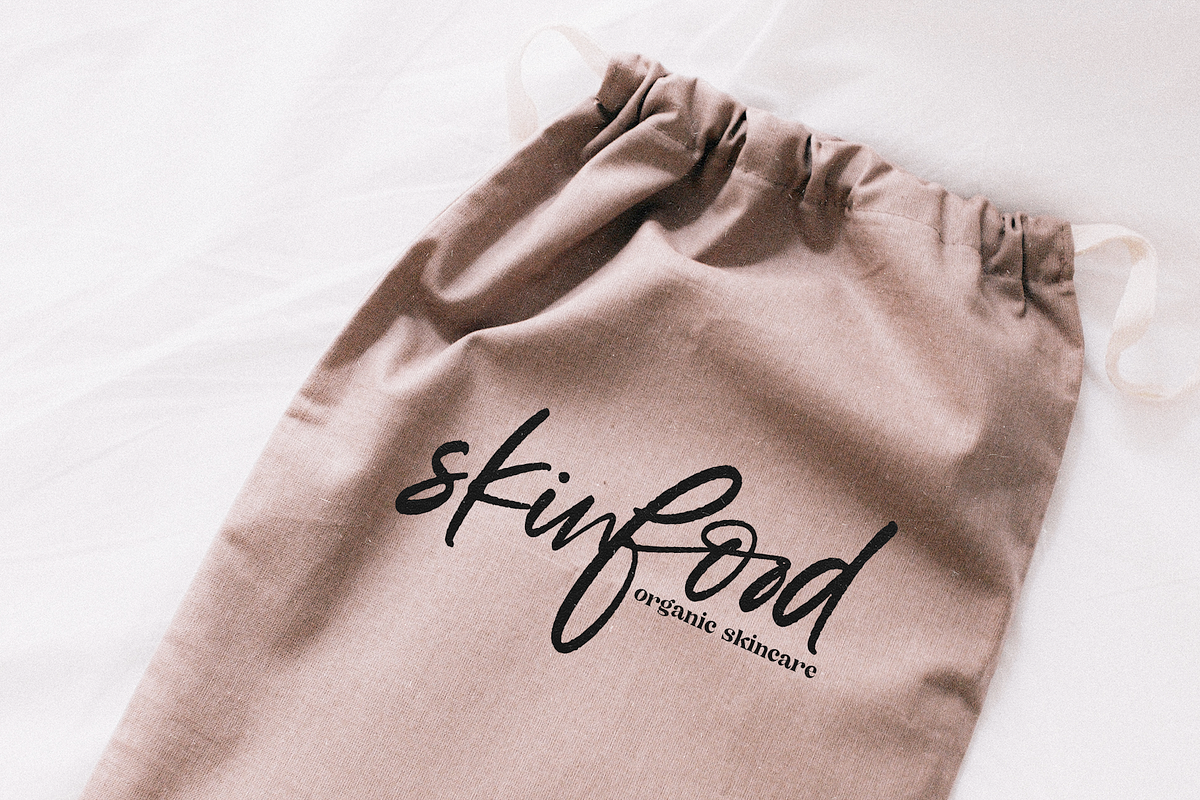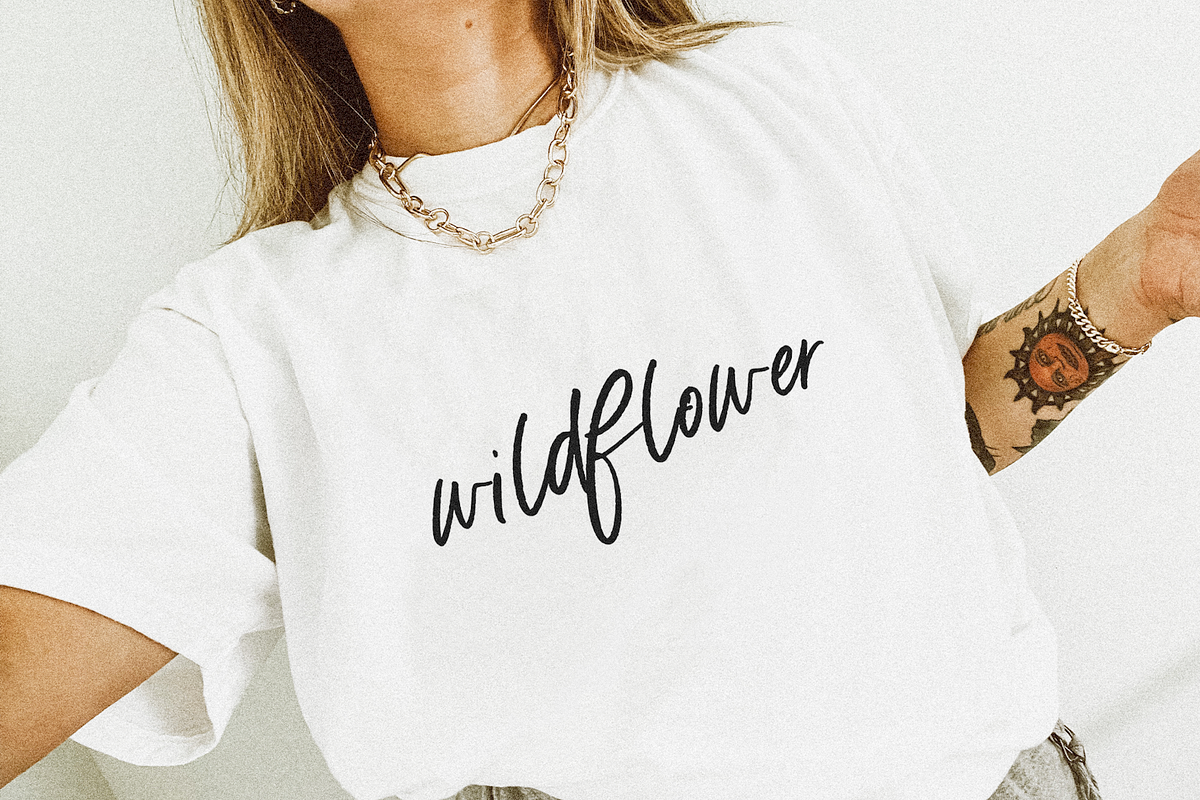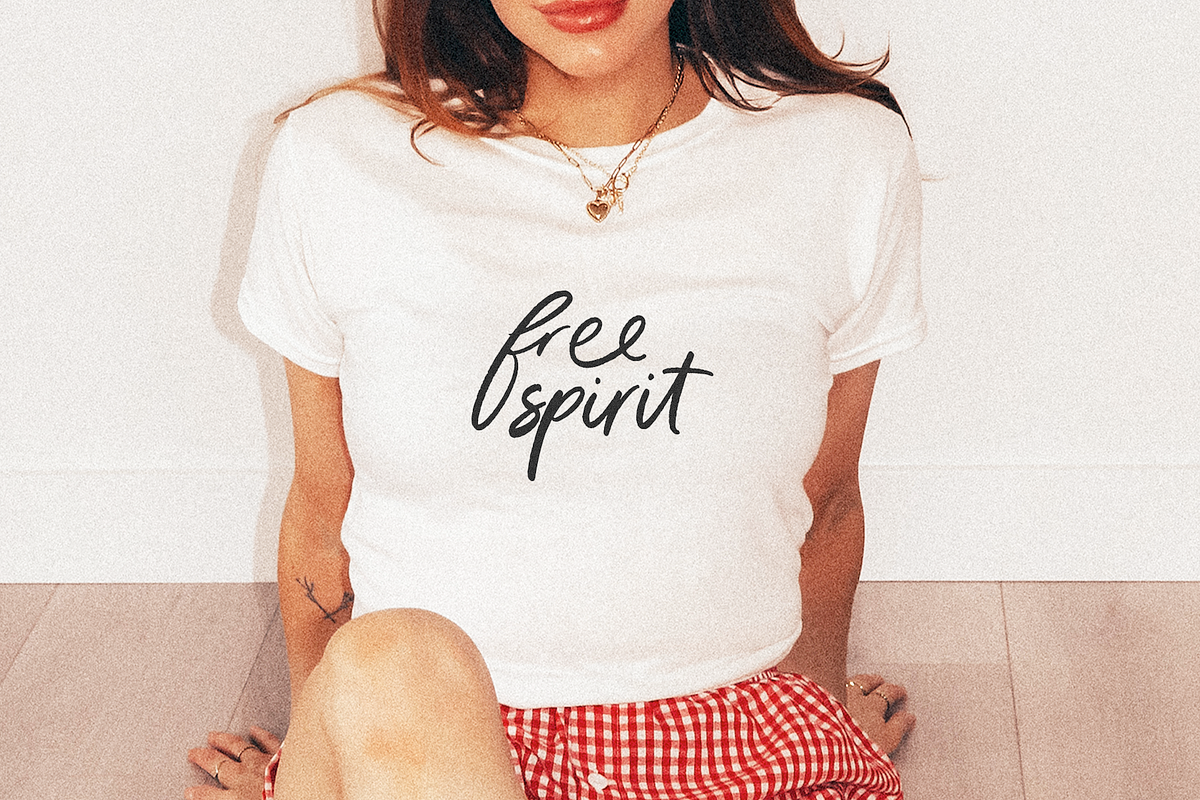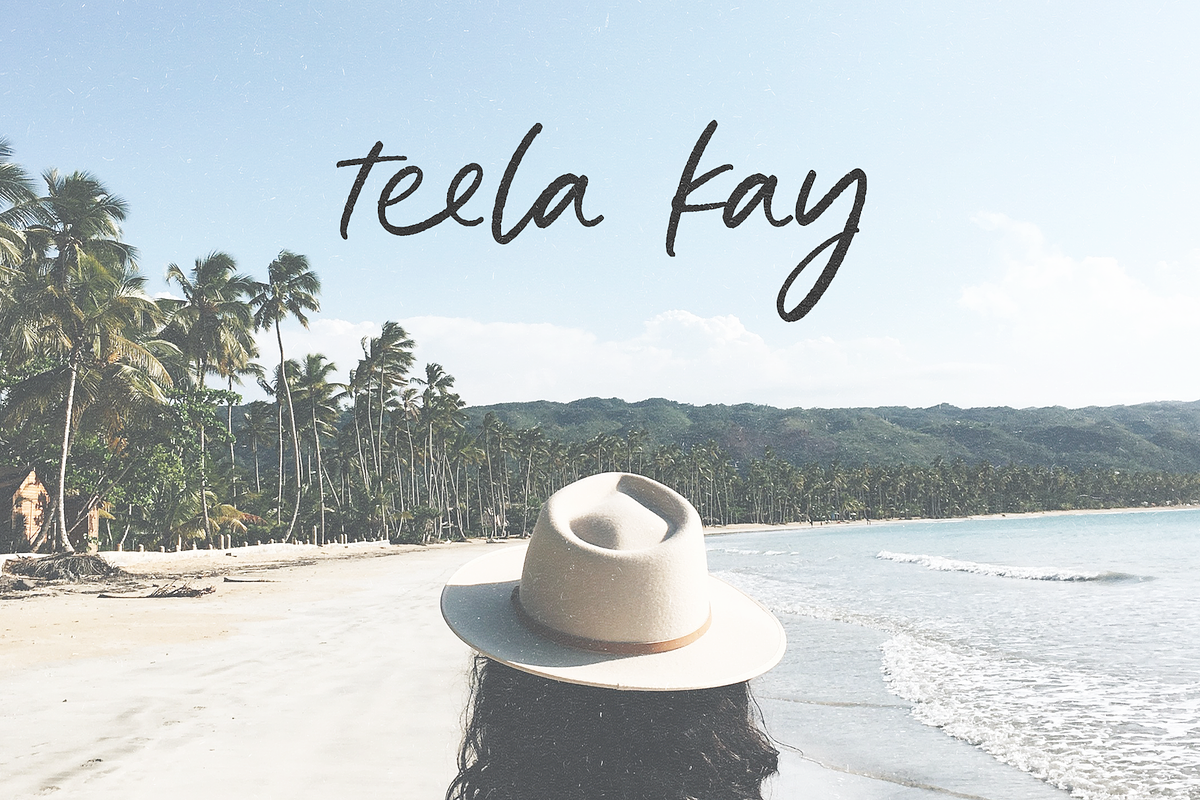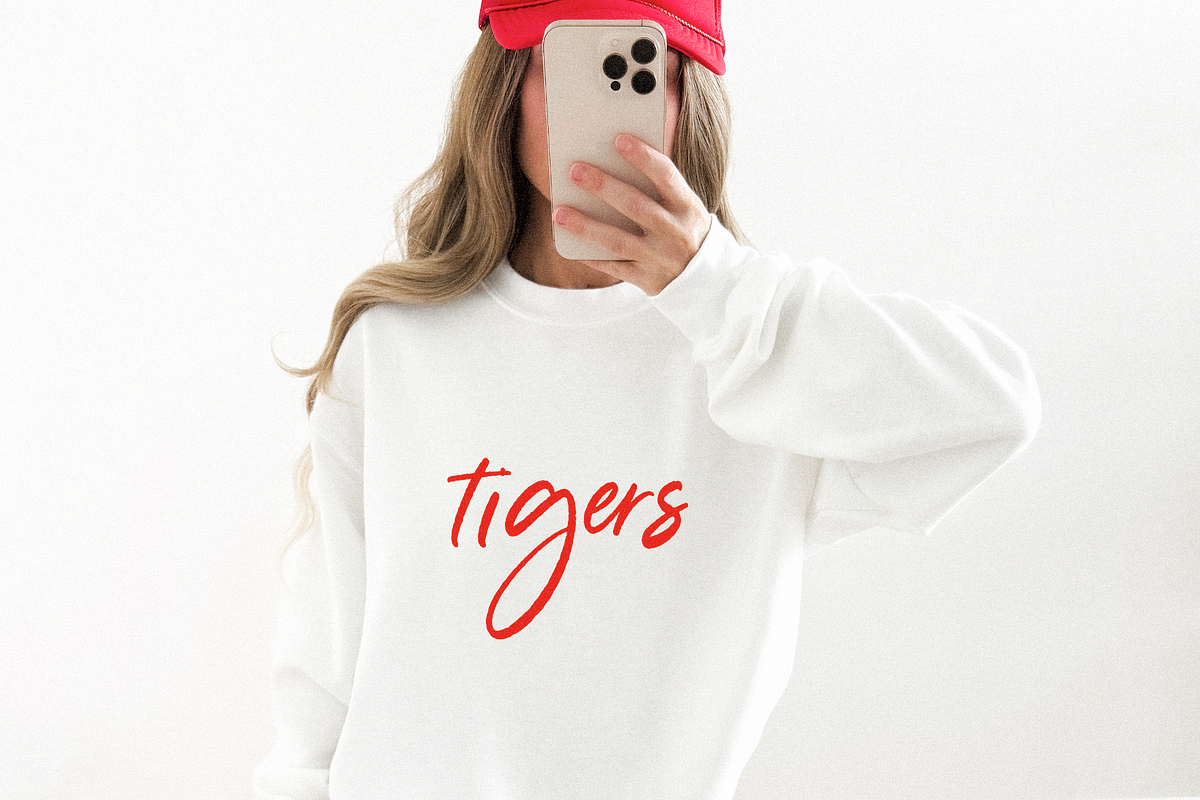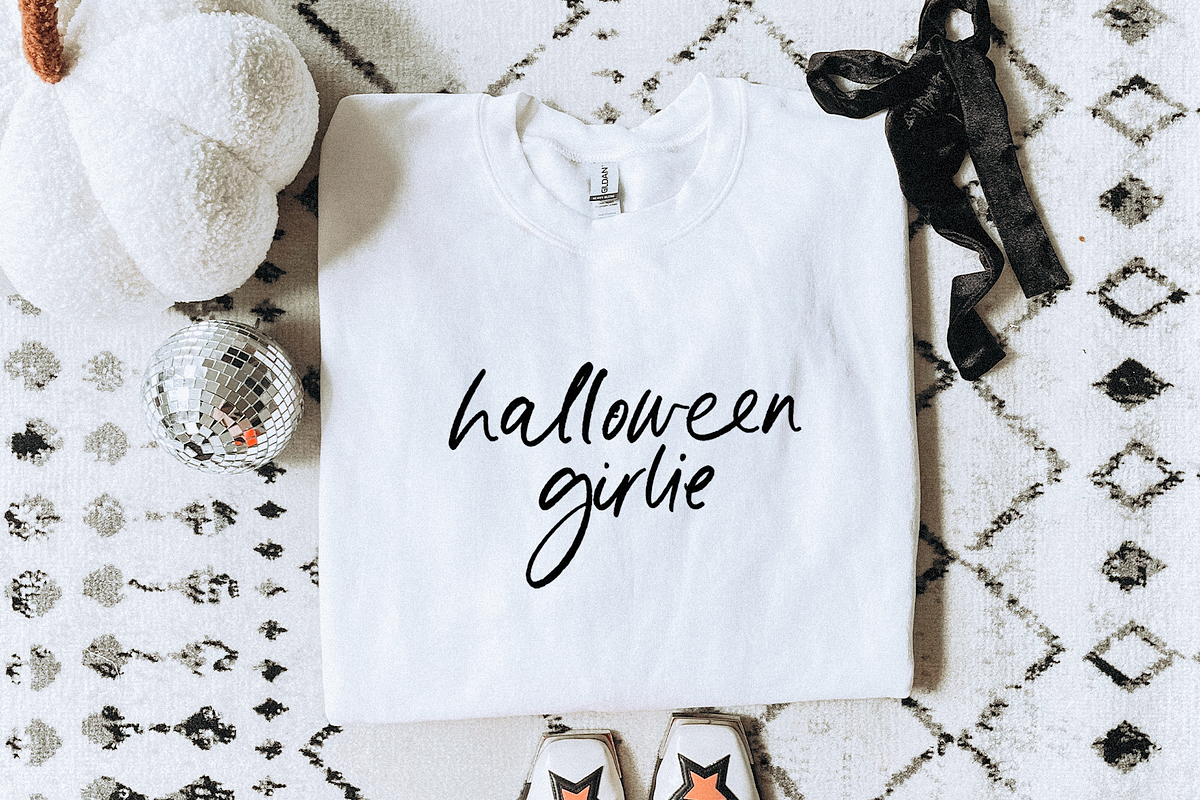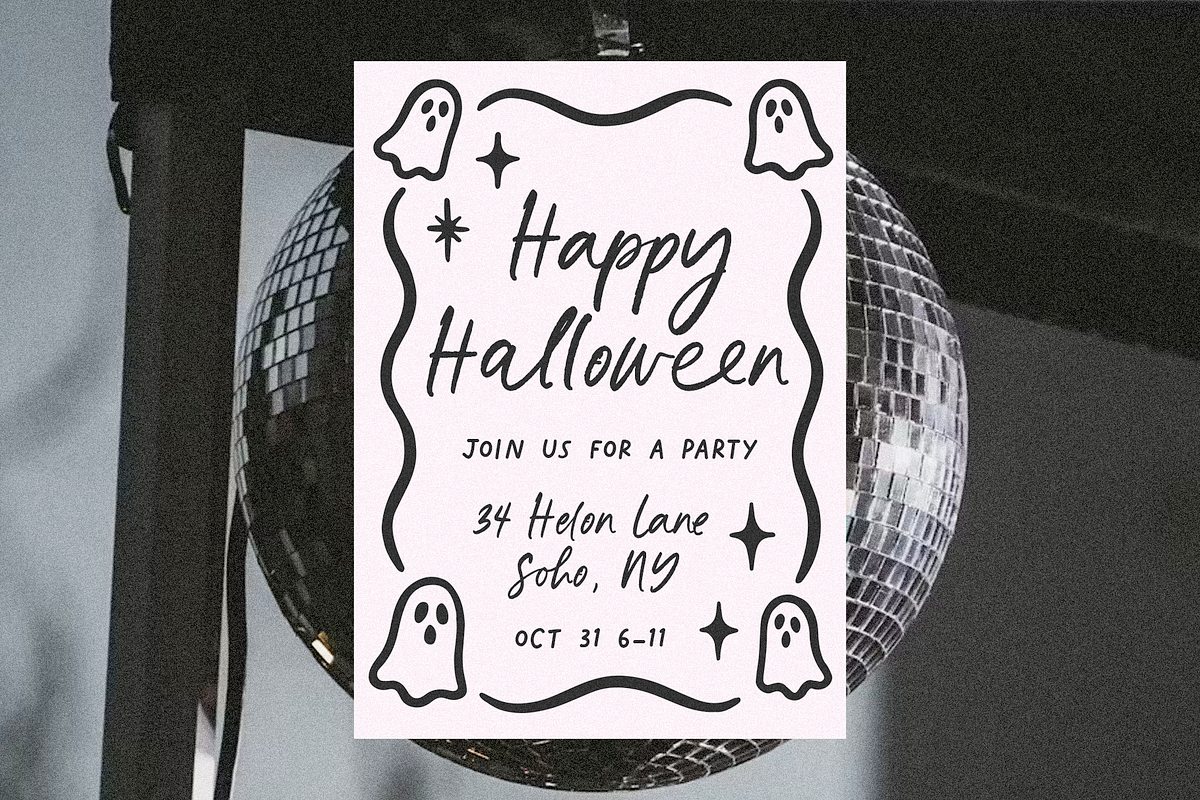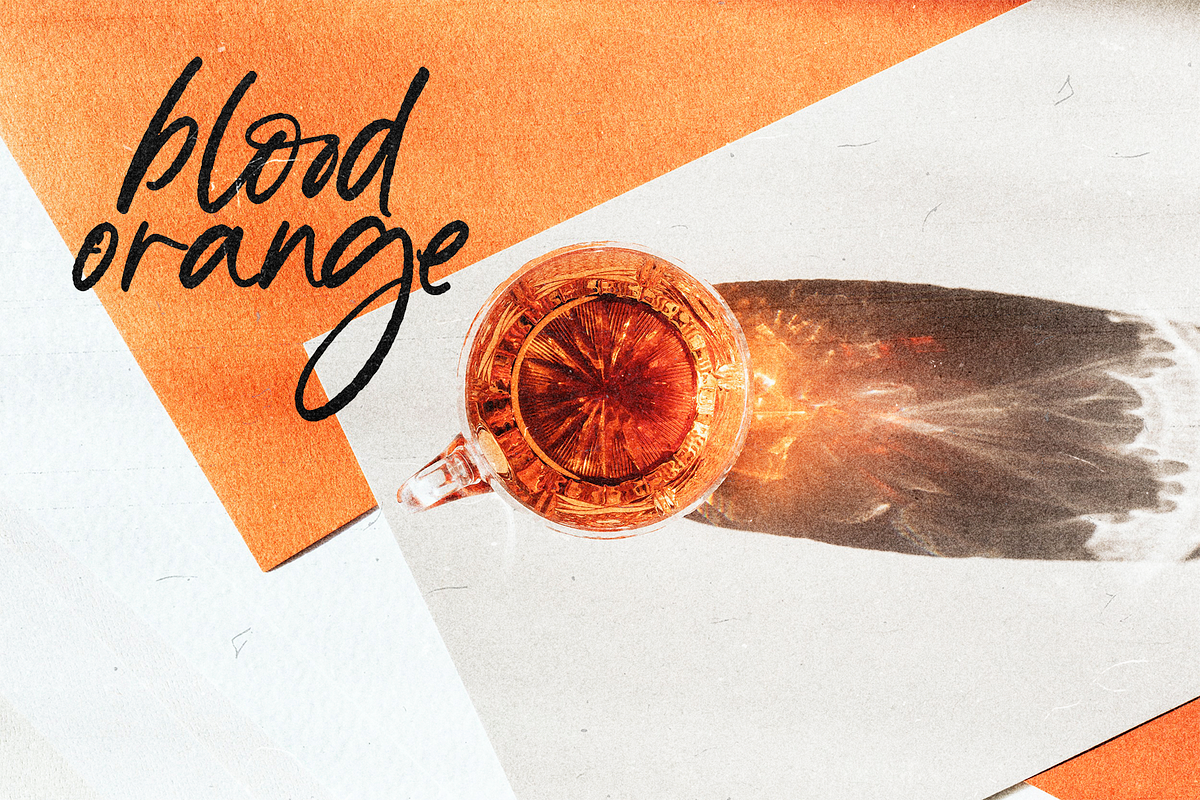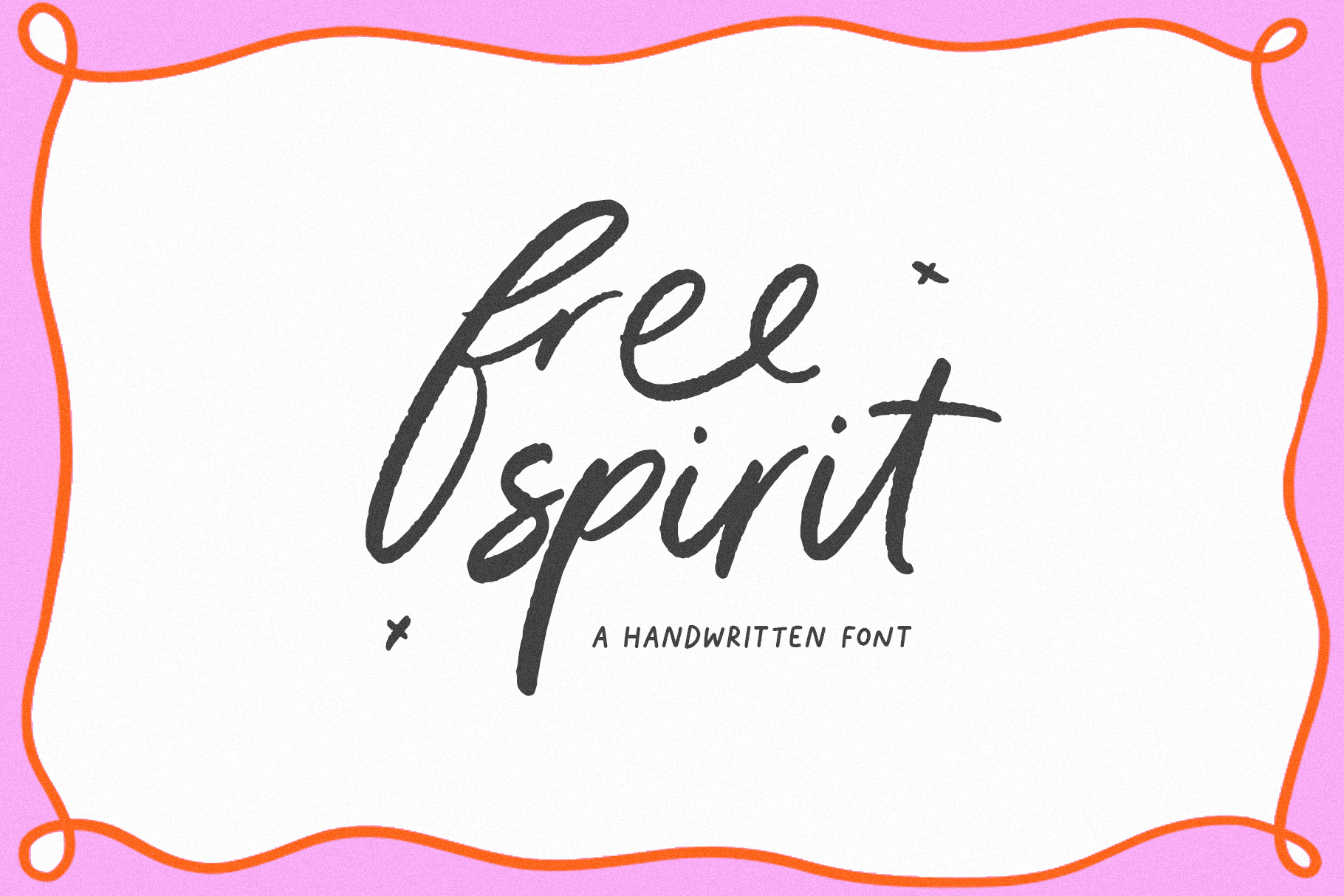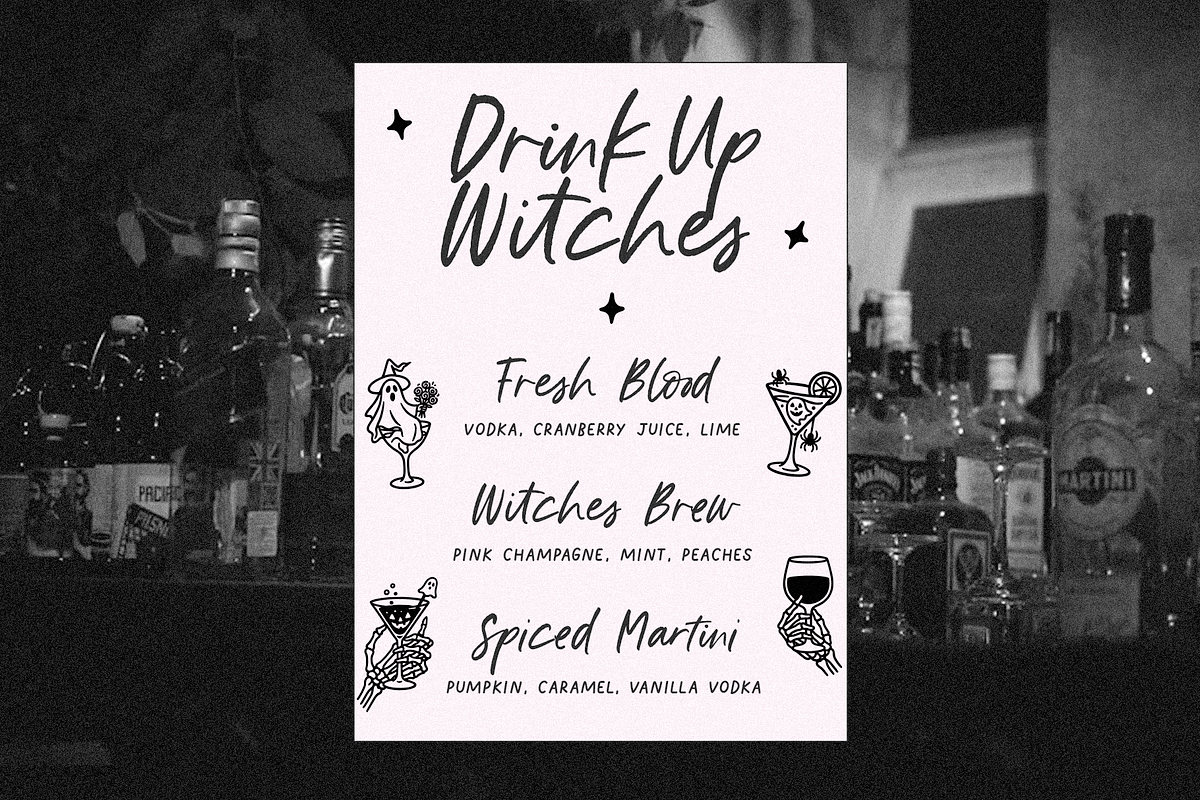
Free Spirit | Casual Script Font
Free Spirit is a casual + textured handwritten font. This font is perfect for handwritten designs, wedding invitations, quotes, logos, notes, posters, product design and more! There are a lot of ligatures included with this font. Please make sure you are using a program that supports opentype fonts and know how to access your glyphs panel. OTF/TTF included Thank you!